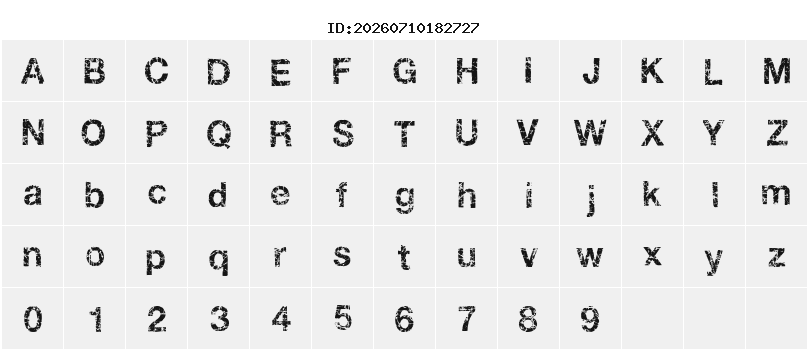
Gastada Preview
• Font Name: Gastada
• Full Font Name: Gastada
About Gastada.ttf
Gastada.ttf is a modern, elegant sans-serif font designed for ultimate readability and visual harmony. Perfect for branding, headlines, web design, and print materials.